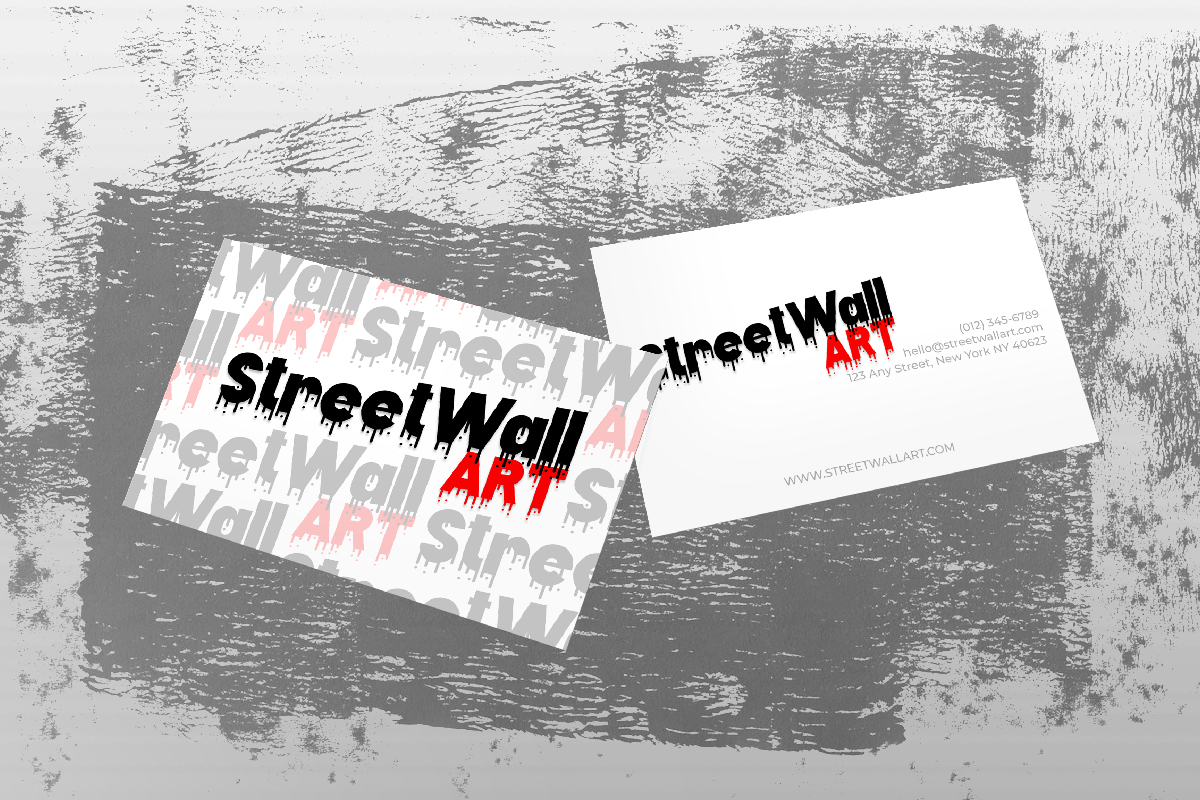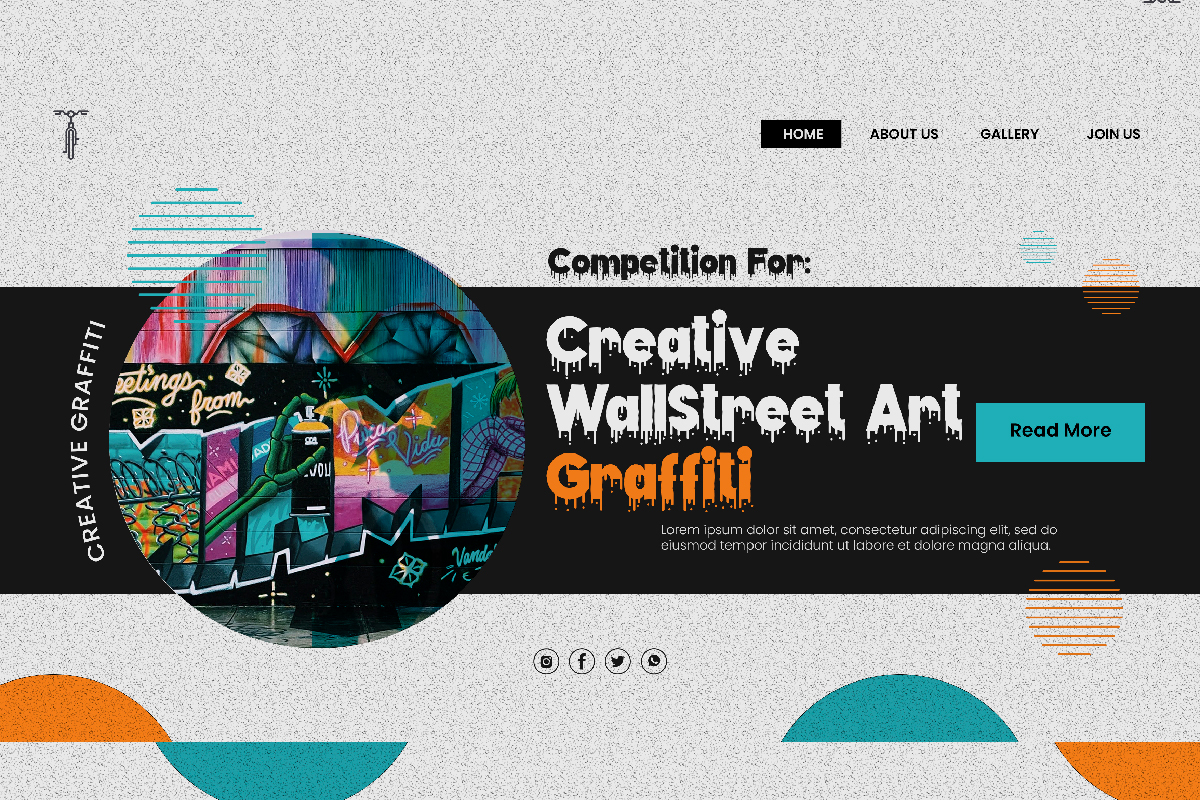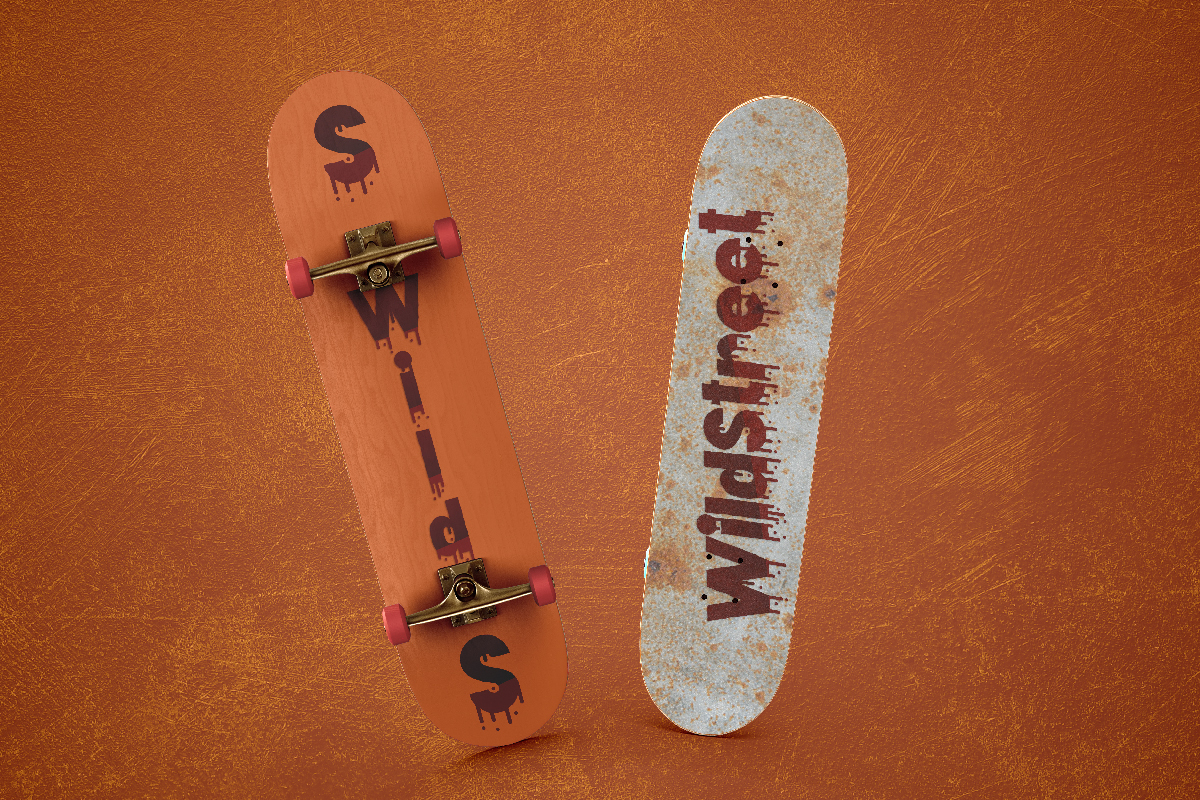
Dripped Ink Font
Dripped Ink Display Font
This font has a unique letter style that will match many themes from horror, games, and many more. This awesome ink drop display can be used on graffiti, brandings, posters and other materials. The creative styles of modern and horror appeal of the ink drop art will make this font stand out.